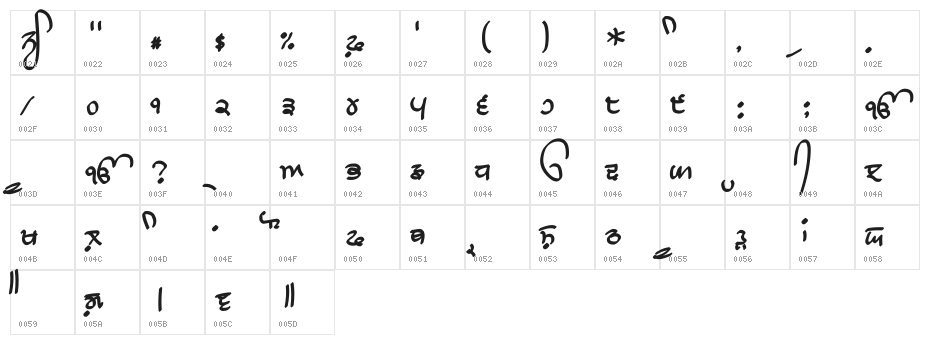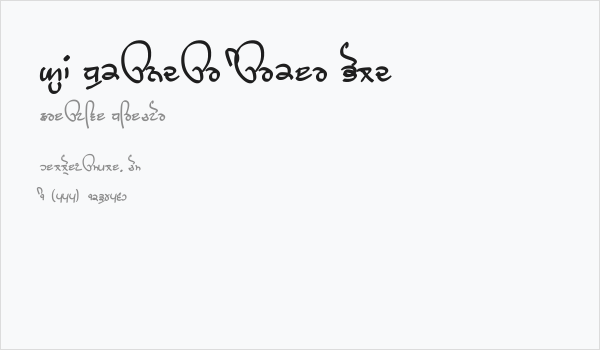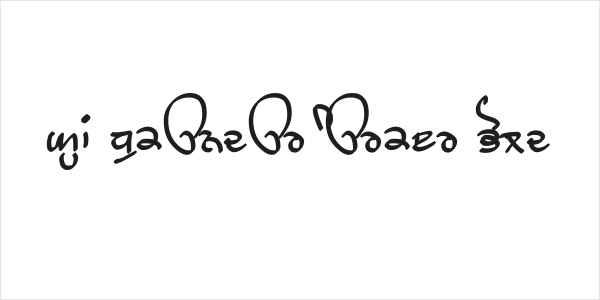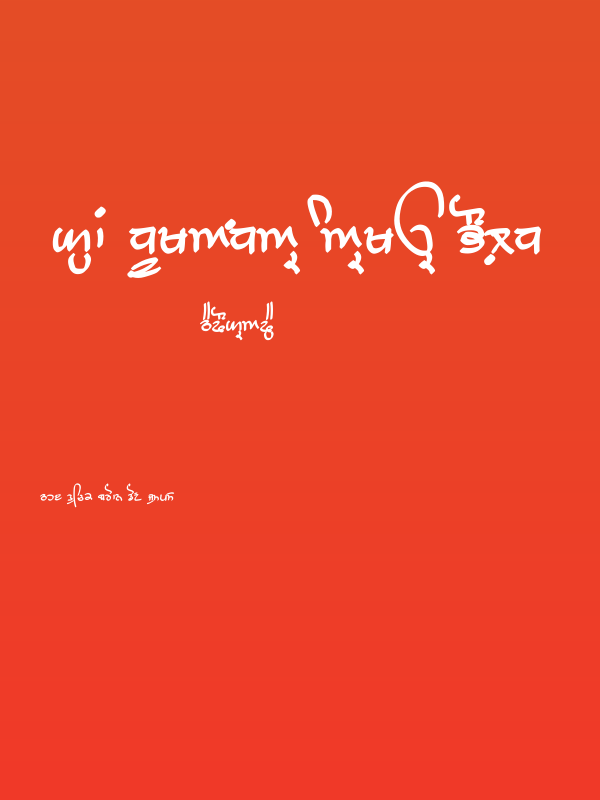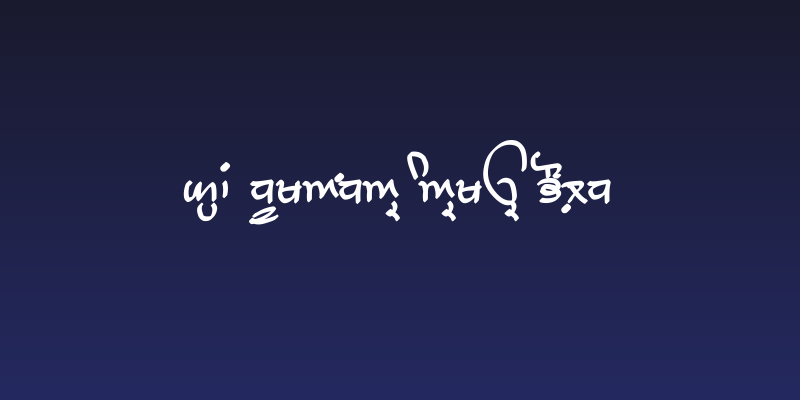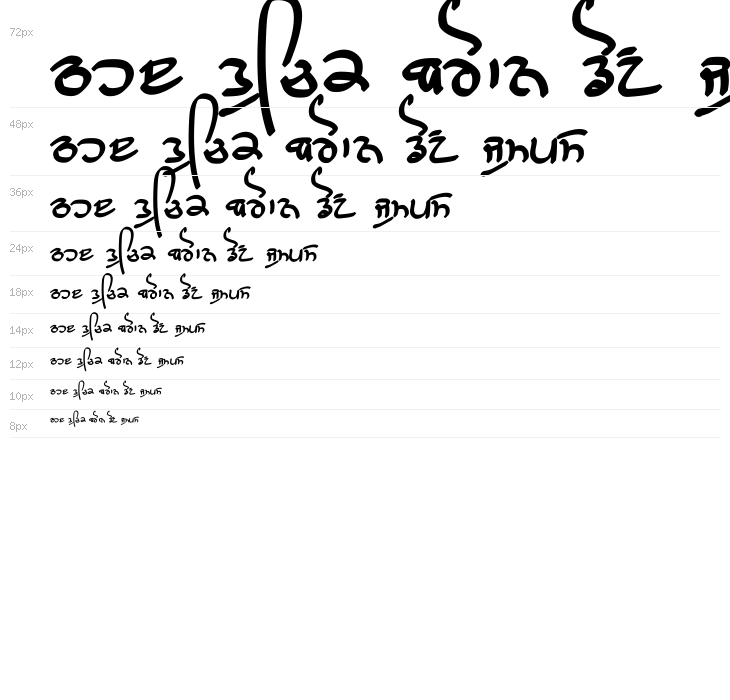
GHW Dukandar Marker Bold Font
GHW Dukandar Marker Bold Description
This font features a bold and expressive style, characterized by its thick strokes and dynamic curves. The letters have a handwritten appearance, with a playful and artistic flair that suggests movement and creativity. The uppercase and lowercase letters maintain a consistent style, with some letters extending below the baseline, adding to the font's unique character. The numbers and special characters are equally bold, ensuring readability while maintaining the overall aesthetic. This font is ideal for projects that require a personal touch or a creative, informal look.